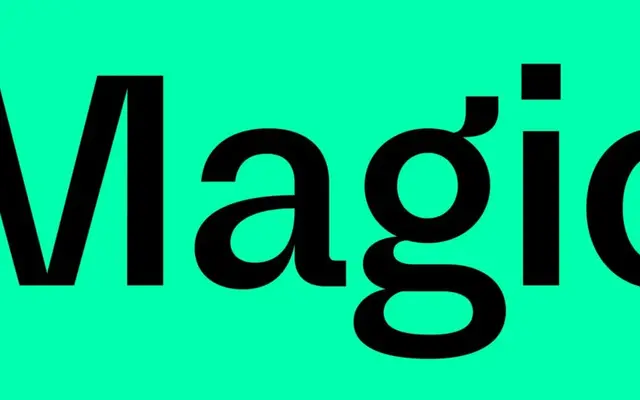
Swinton
A grotesque by Marc Droz that fuses Swiss 1960s rationalism with expressive details drawn from American grotesque conventions, available in eleven weights with italics.
Released in 2023, Swinton traces its lineage to the low-stroke-contrast grotesques of the International Style while incorporating characterful details absent from its more austere predecessors. The family spans eleven weights from Extra Thin to Extra Black, each with a matching italic, giving it considerable range across editorial, branding and display contexts. Nouvelle Noire accompanied the release with a fictional narrative universe built using AI tools, framing the typeface within an invented cultural mythology.
Swinton draws directly from Swiss grotesque tradition of the 1960s, characterised by low stroke contrast, with additional expressive details borrowed from American grotesque conventions.